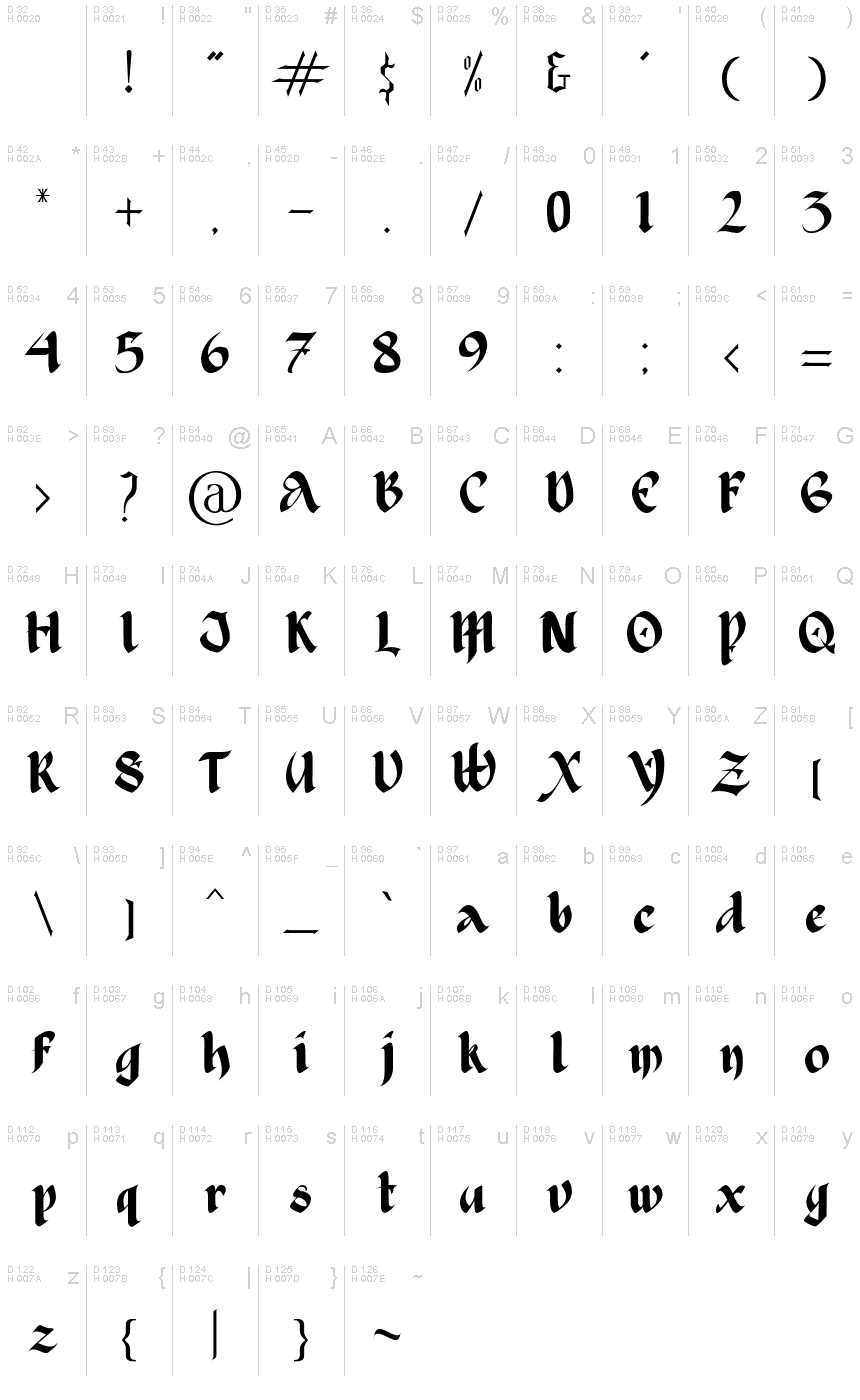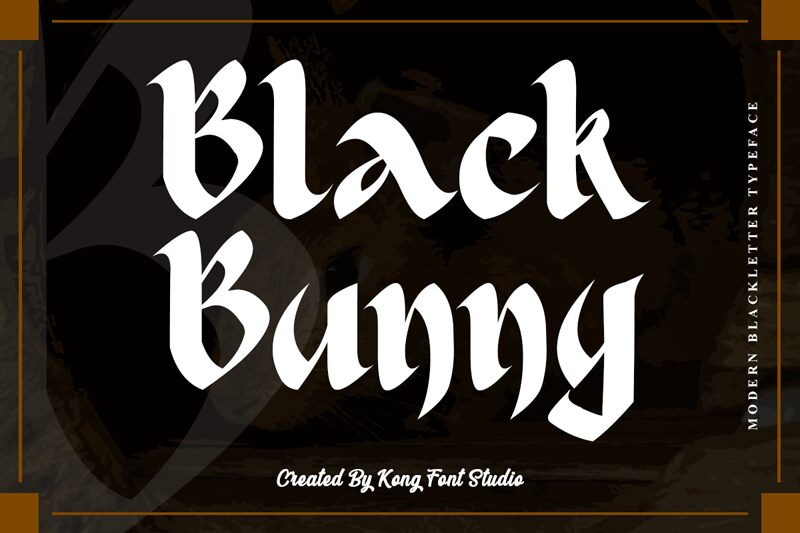
Black Bunny
Black Bunny, designed by Kong Font, is a gothic semi-bold font that is perfect for projects that require a bold and edgy look. Its thick strokes and sharp edges make it suitable for designs such as posters, album covers, and branding materials. Its unique style also makes it suitable for Halloween-themed designs or any project that needs a touch of darkness. Whether you're looking to create a grunge-style design or add some attitude to your typography, Black Bunny is the font for you. Its versatility allows it to be used in various projects such as clothing design, tattoo art, and even video game design.